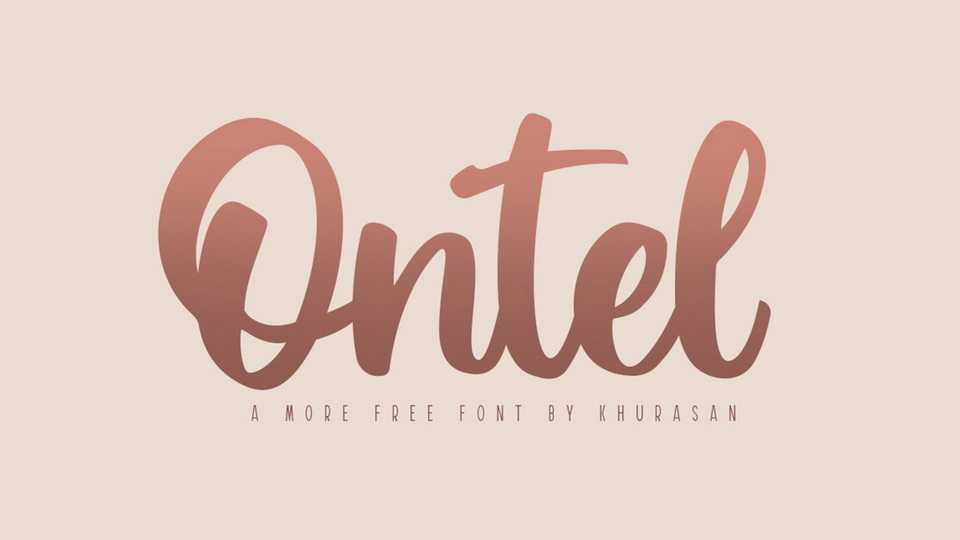
Download Ontel font, a hand brushed, fun, warm, and cozy script typeface. Ontel is perfect for adding a fresh and unique look to company branding, logos, greetings, magazine layout, homeware, prints and invitations.